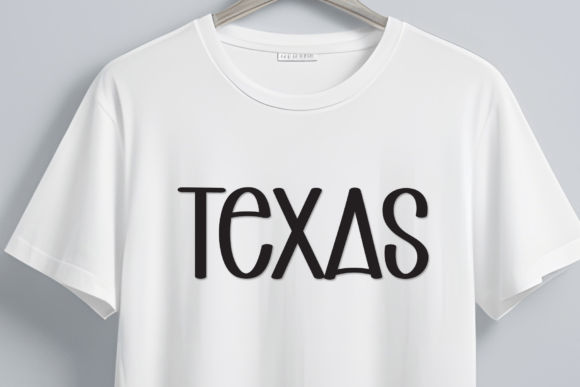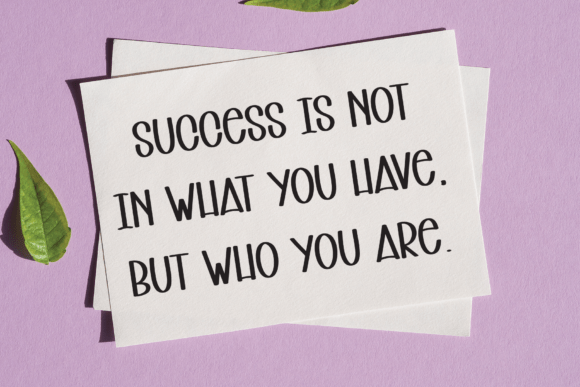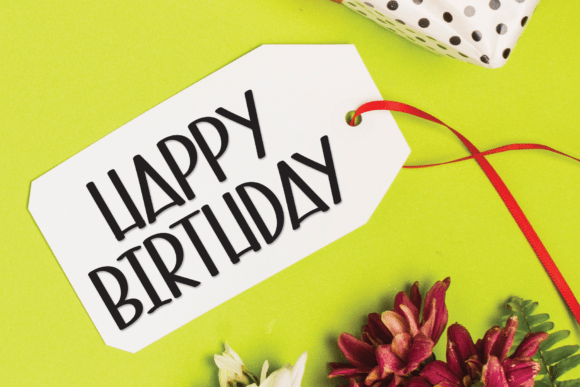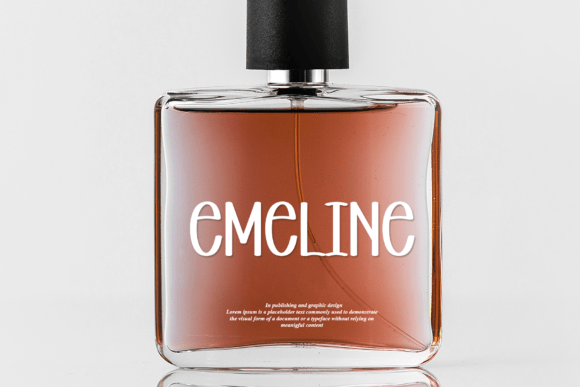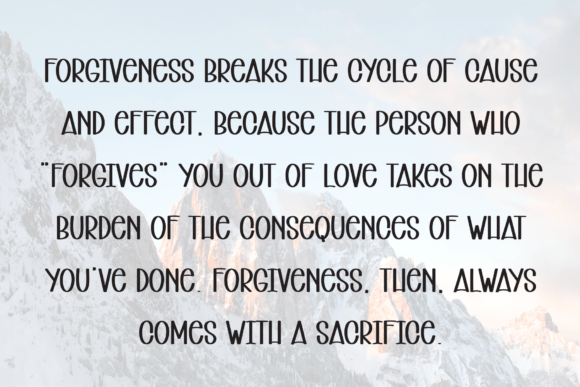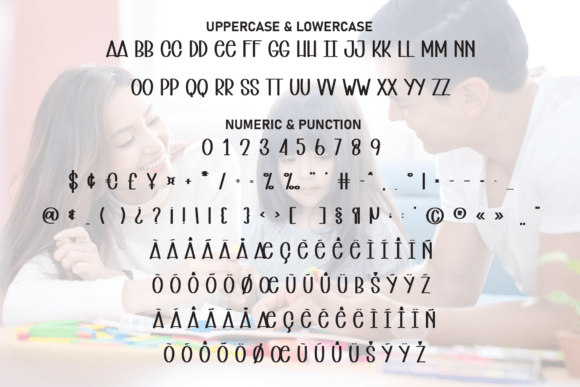
Introducing Family Teacher Font: The Ultimate Handwritten Display Font for Your Designs
Are you looking for a font that can add a touch of warmth and playfulness to your designs? Look no further than the Family Teacher Font! This beautiful handwritten display font is perfect for designers and crafters who want to create unique and captivating designs that stand out from the crowd. With its sweet and friendly aura, this font is sure to delight your audience and leave a lasting impression.
The Charm of Family Teacher Font
The Family Teacher Font is embodied with a sweet and friendly aura that makes it a delightful choice for a variety of design projects. Whether you’re creating wedding invitations, greeting cards, or any other type of design, this font is sure to add a touch of charm and whimsy. Its cute and amusing essence is sure to captivate your audience and turn ordinary designs into extraordinary ones.
One of the best things about the Family Teacher Font is its versatility. It’s perfect for a variety of design projects, including wedding invitations and greeting cards. The font’s sweet and friendly aura makes it an ideal choice for these types of designs, as it adds a touch of warmth and personality. Imagine creating beautiful wedding invitations that set the tone for a romantic and memorable day. With the Family Teacher Font, you can create designs that are both elegant and playful.
Why Choose Family Teacher Font?
So, why choose the Family Teacher Font for your designs? Here are just a few reasons:
- Unique and Captivating: The Family Teacher Font is a unique and captivating font that is sure to grab the attention of your audience. Its cute and amusing essence adds a touch of personality to any design.
- Versatile: This font is versatile and can be used for a variety of design projects, including wedding invitations, greeting cards, and more.
- Easy to Read: The Family Teacher Font is easy to read, making it perfect for designs that require a personal touch.
- High-Quality: This font is of high quality, ensuring that your designs look professional and polished.
How to Use Family Teacher Font
Using the Family Teacher Font is easy! Here are a few tips to get you started:
- Pair it with Other Fonts: The Family Teacher Font pairs well with other fonts, making it easy to create unique and interesting designs.
- Use it for Headings: The Family Teacher Font is perfect for headings and titles, adding a touch of personality and whimsy to your designs.
In conclusion, the Family Teacher Font is a beautiful handwritten display font that is perfect for designers and crafters who want to add a touch of warmth and playfulness to their designs. With its sweet and friendly aura, this font is sure to delight your audience and leave a lasting impression. Whether you’re creating wedding invitations, greeting cards, or any other type of design, the Family Teacher Font is a great choice. So why wait? Immerse your designs in a world of charm with the Family Teacher Font today!
With the Family Teacher Font, you can transform your designs from ordinary to extraordinary. Its unique and captivating essence is sure to grab the attention of your audience and leave a lasting impression. So, what are you waiting for? Get ready to take your designs to the next level with the Family Teacher Font!